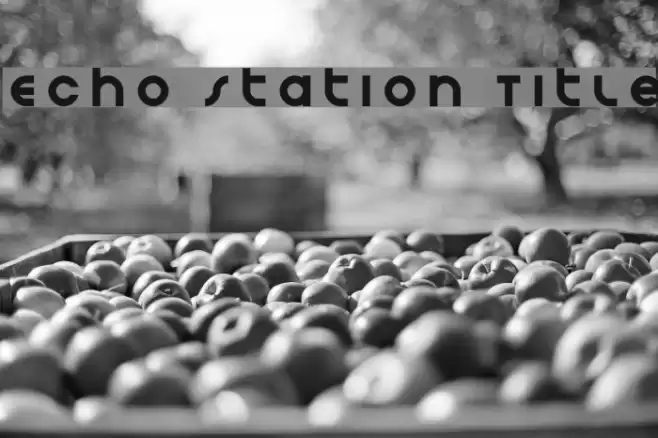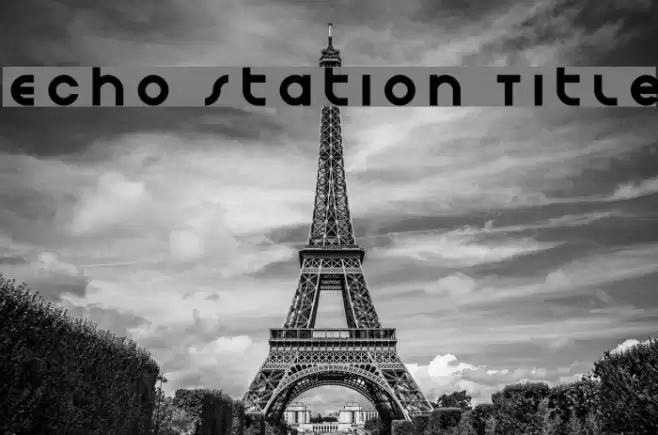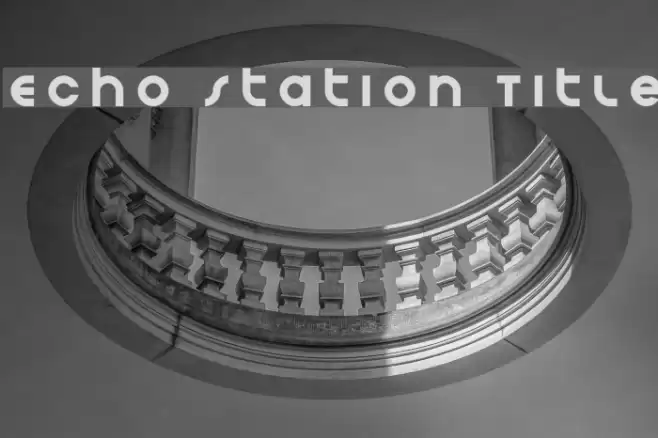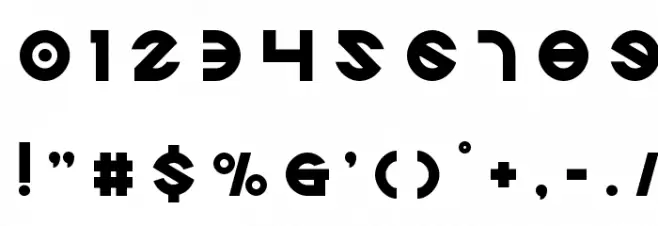
Echo Station Title Font
Echo Station Title Description
This font features a modern and geometric design with a futuristic appeal. The characters are constructed with bold, clean lines and rounded edges, creating a sense of uniformity and balance. The uppercase and lowercase letters share a similar structure, enhancing the cohesive look. Numbers and special characters are designed to match the overall aesthetic, maintaining the geometric and bold style. The font's unique character shapes, such as the open counters and circular forms, contribute to its distinctive appearance.
A modern, geometric font with bold, rounded characters and a futuristic style from Uncategorized fonts.
- Proposed Projects: Ideal for tech-related branding, futuristic designs, digital interfaces, and modern advertising.
- Use Case: Headlines, Logos, Digital interfaces